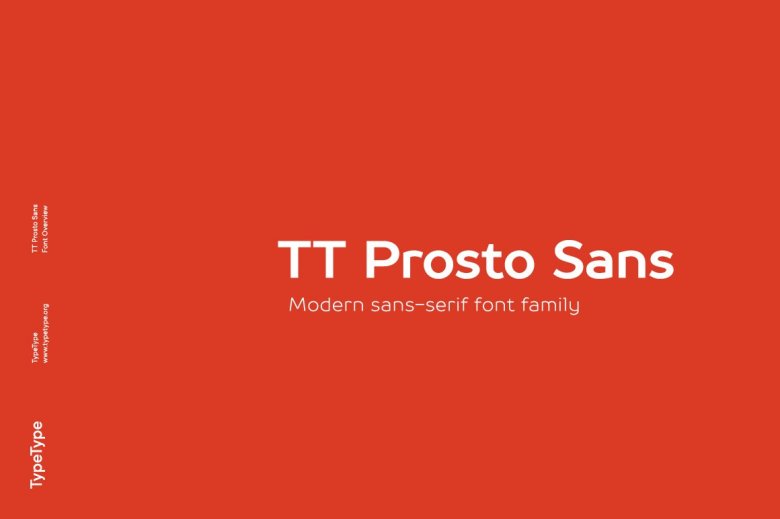
TT Prosto Sans Font
TT Prosto Sans–a font ideal for use in any situation. It’s possible to apply these fonts anywhere. The modern open grotesque shapes and basic font family method: Thin, Light, Regular, Bold, Black and Italics. TT Prosto Sans is an assistant that will work as well with all your projects
TT Prosto Sans Serif Font Family